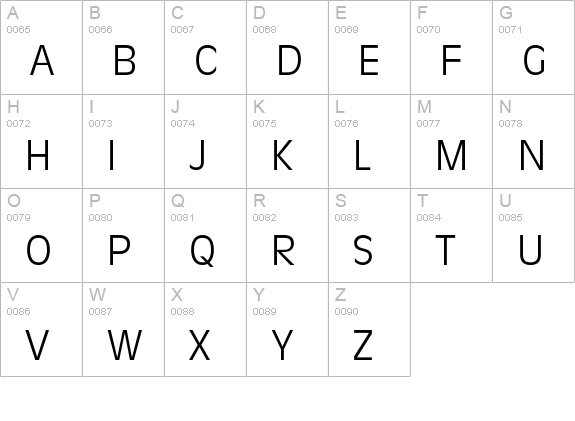
12 Antique Olive** Light 02008 Font Details
12 Antique Olive** Light 02008 is a refined, elegant variant in the 12 typeface family \xE2\x80\x94 well suited to elegant body text, refined sub-headings, and luxury branding.
12 Antique Olive Light 02008 font is a timeless typeface that exudes elegance and sophistication. With its classic design and subtle curves, this font is perfect for adding a touch of refinement to any project. Its light weight gives it a delicate and airy appearance, making it ideal for use in headings, titles, and other display purposes. The Antique Olive Light 02008 font is not only stylish and versatile, but it is also free to download at FontsMarket.com. This means you can enhance your designs with this exquisite font without any cost involved. Whether you are working on a branding project, creating invitations, or designing a website, this font will elevate your work with its charm and grace. Experience the beauty and grace of the Antique Olive Light 02008 font today by downloading it for free at FontsMarket.com. Let this elegant typeface inspire your creativity and bring a touch of sophistication to your designs.